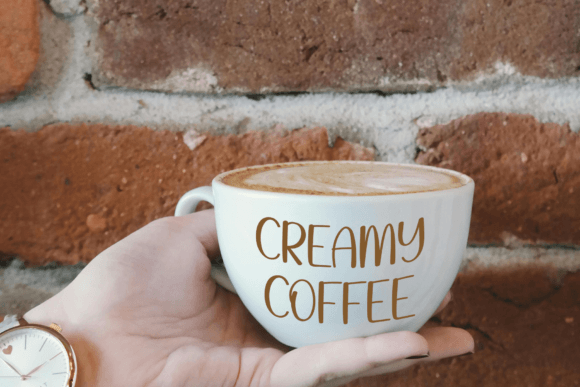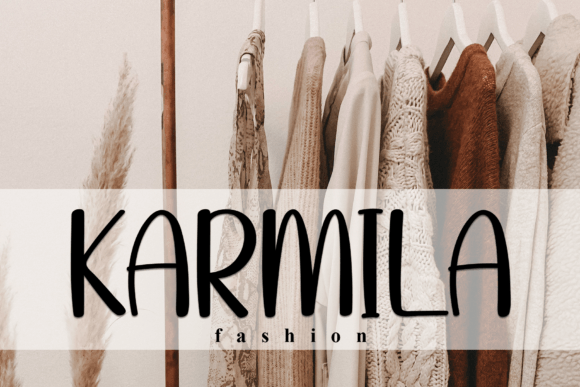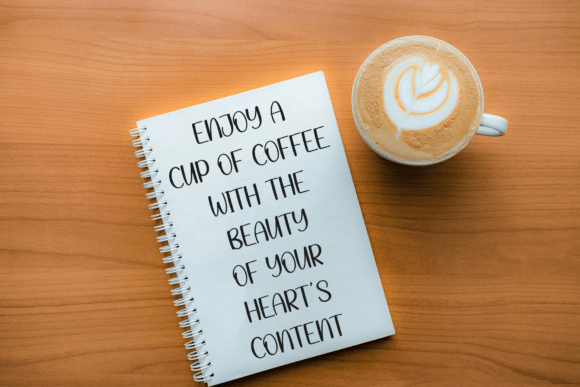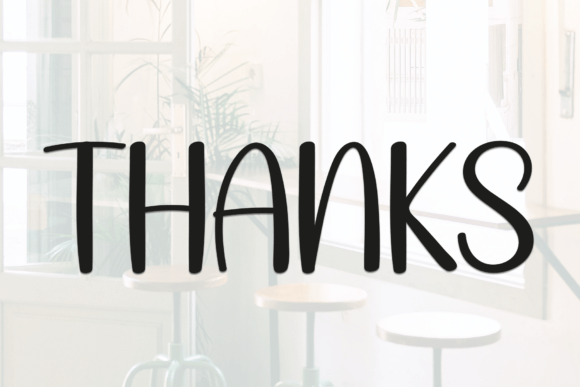
Cafe Retro Font: Elevate Your Designs with a Timeless Touch
Are you on the hunt for a font that exudes elegance and sophistication? Look no further than Cafe Retro, a stunning handwritten font that is sure to capture your heart. With its unique blend of classic charm and modern flair, Cafe Retro is the perfect addition to any design project. In this article, we’ll dive into the world of Cafe Retro and explore its features, benefits, and uses.
The Story Behind Cafe Retro
Cafe Retro is a beautifully crafted font that boasts an elegant touch, making it perfect for designers and crafters looking to add a touch of sophistication to their work. Its unique design is characterized by flowing lines, subtle curves, and a distinctive style that is both timeless and versatile. Whether you’re working on a logo, branding project, or social media graphics, Cafe Retro is sure to make a lasting impression.
Key Features of Cafe Retro
- Handwritten Elegance: Cafe Retro’s handwritten style gives it a personal and organic feel, making it perfect for designs that require a touch of warmth and personality.
- Distinctive Style: Its incredibly distinct style sets it apart from other fonts, making it easy to recognize and remember.
- Timeless Appeal: Cafe Retro’s classic design ensures that it will remain relevant for years to come, making it a great investment for designers and crafters.
- Versatility: This font is perfect for a wide range of design projects, from logos and branding to social media graphics, posters, and more.
Benefits of Using Cafe Retro
- Stand Out from the Crowd: With Cafe Retro, you can create designs that are truly unique and eye-catching, setting you apart from the competition.
- Elevate Your Brand: Cafe Retro’s elegant style is perfect for creating professional-looking designs that will elevate your brand and make it more memorable.
Uses for Cafe Retro
Cafe Retro is a versatile font that can be used for a wide range of design projects, including:
- Logo Design: Create a stunning logo that showcases your brand’s personality and style.
- Branding: Use Cafe Retro to create a cohesive brand identity that exudes elegance and sophistication.
- Social Media Graphics: Add a touch of class to your social media graphics, including Facebook posts, Instagram stories, and more.
- Posters and Flyers: Create eye-catching posters and flyers that showcase your message in style.
Tips for Using Cafe Retro
In conclusion, Cafe Retro is a stunning handwritten font that is sure to elevate your designs and make them stand out from the crowd. With its elegant touch, distinctive style, and timeless appeal, this font is perfect for designers and crafters looking to add a touch of sophistication to their work. Whether you’re working on a logo, branding project, or social media graphics, Cafe Retro is the perfect choice. So why wait? Fall in love with Cafe Retro today and create spectacular designs that will leave a lasting impression!